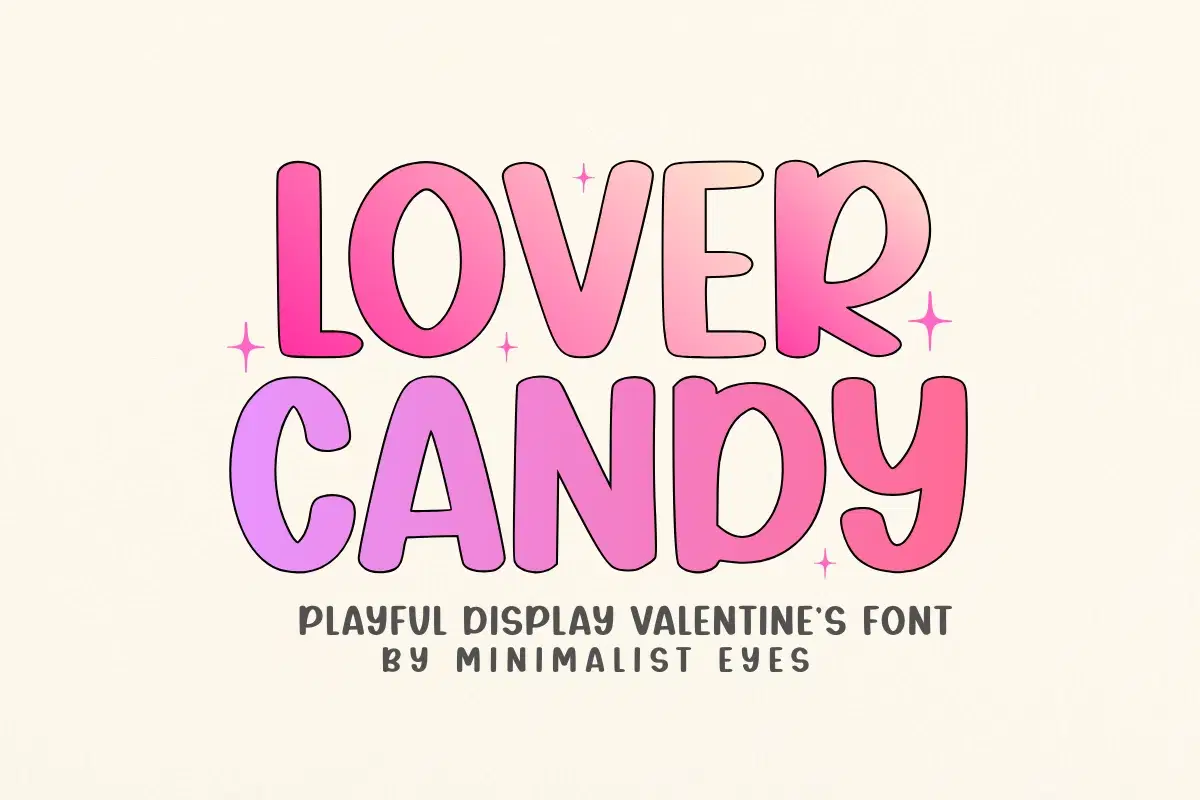
Introducing Lover Candy, a fashionable Valentine’s Day font loaded with distinctive character and refined style. A perfect blend of elegance and fluidity shapes each letter of this font, spinning an engaging narrative for each one. As you submerge yourself in the creative journey of your design projects, let Lover Candy express your sentiments eloquently and artistically. With its strong character, this font is not only a typography choice; it’s a vibrant component of visual storytelling.